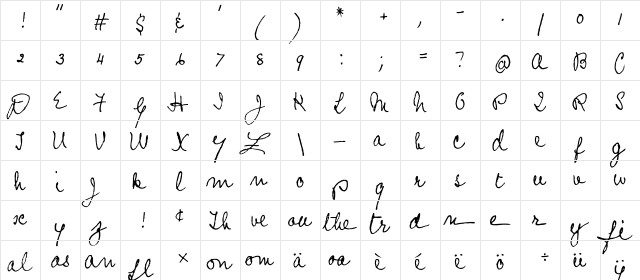
Prophecy Script Regular
Design Context for Prophecy Script Typeface
Prophecy Script flows with the natural rhythm of handwritten lettering, making it ideal for designs that call for warmth and personal expression.
Font Pairing: Combine Prophecy Script with a simple geometric sans for maximum contrast — the tension between flowing curves and clean structure is a classic typographic pairing.
Pro Tip: Use Prophecy Script for short runs of text — names, titles, or taglines. Extended body copy in script faces tires the eye quickly.